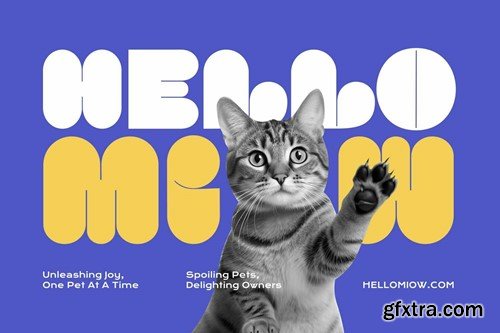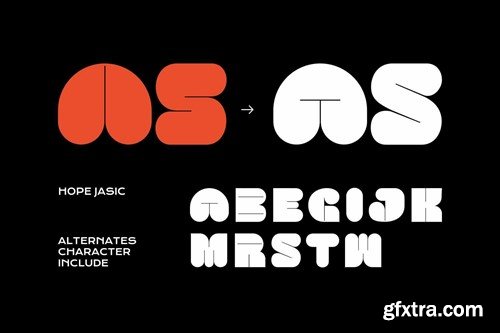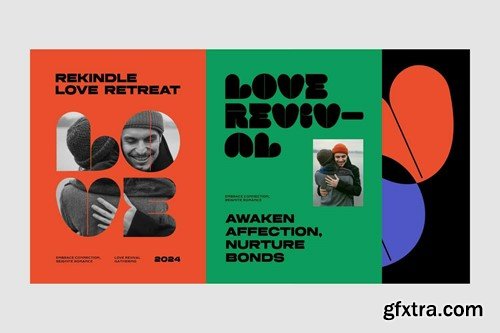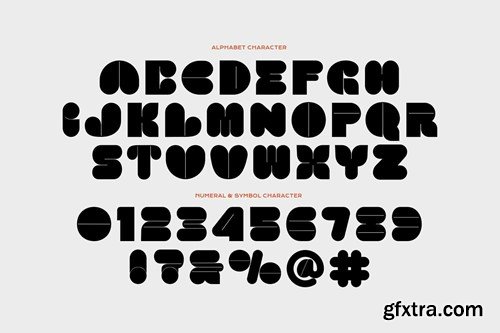
Hope Jasic is a unique display font made in a bold and rounded style with a fun and playful impression, Hope Jasic is suitable for your designs that require a bold, chubby, fat and cheerful style. Whether you're working on food product branding, creating a display headline, or designing packaging for your latest project. Hope Jasic font is perfect for creating eye-catching designs that demand attention. It's perfect for brands that want to make a bold statement and stand out from the crowd. So what are you waiting for? Add some fun and excitement to your next project with Hope Jasic font. With its playful and youthful tone, this font is perfect for creating unique and memorable designs. Get ready to make your designs pop with this bold and playful font! Includes: Features: Thank you for purchasing! Good luck designing! Regards, Imoodev